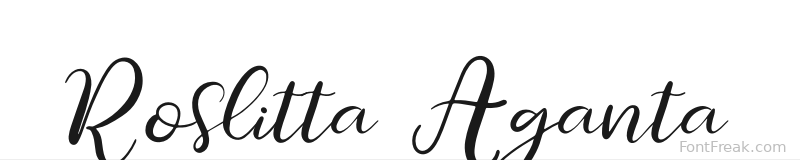
Roslitta Aganta
Roslitta Aganta, crafted by Perspectype Studio in 2021, is a beautifully designed script font that embodies elegance and sophistication. This font features a fluid, handwritten style that is perfect for adding a personal touch to various design projects. With its medium stroke weight and subtle contrast, Roslitta Aganta maintains readability while exuding charm and warmth. The generous spacing between characters enhances its legibility, making it suitable for both headings and body text.
This versatile font is ideal for a range of applications. It shines in wedding invitations, where its romantic, flowing lines can set the perfect tone for a special day. Additionally, Roslitta Aganta works wonderfully for restaurant menus, giving a casual yet refined feel that can elevate the dining experience. Graphic designers will appreciate its use in branding projects, where it can be paired with elegant visuals to create a memorable logo. Content creators can also benefit from this font in social media graphics, making posts more inviting and visually appealing. Finally, it's a great choice for personal stationery, allowing individuals to express their unique style in letters and notes.
The target audience for Roslitta Aganta includes graphic designers, small business owners, and content creators who seek to enhance their projects with a unique, stylish font. Its ability to convey a sense of warmth and approachability makes it an excellent choice for anyone wanting to create a lasting impression.
What sets the Roslitta Aganta font apart is its seamless blend of elegance and approachability, making it an essential addition to any designer's toolkit. With the Roslitta Aganta font free download, you can easily incorporate this enchanting typeface into your next project, ensuring it stands out with grace and style.